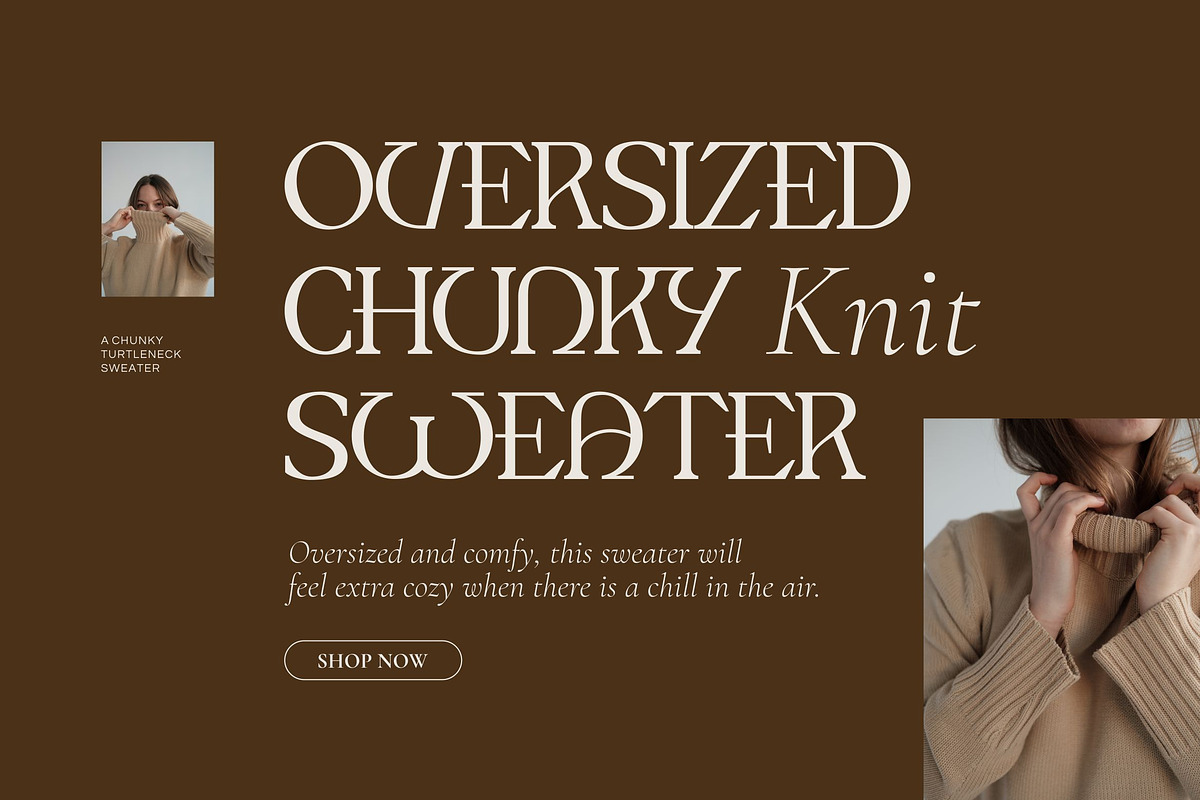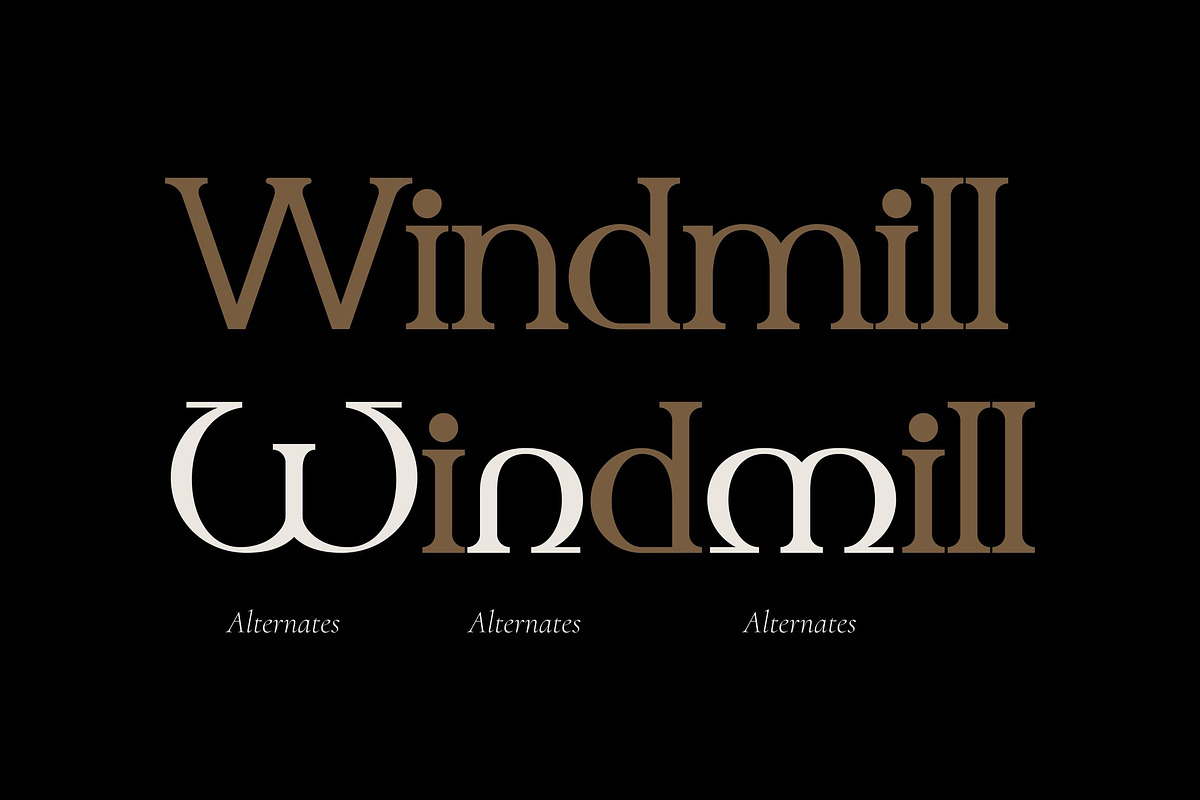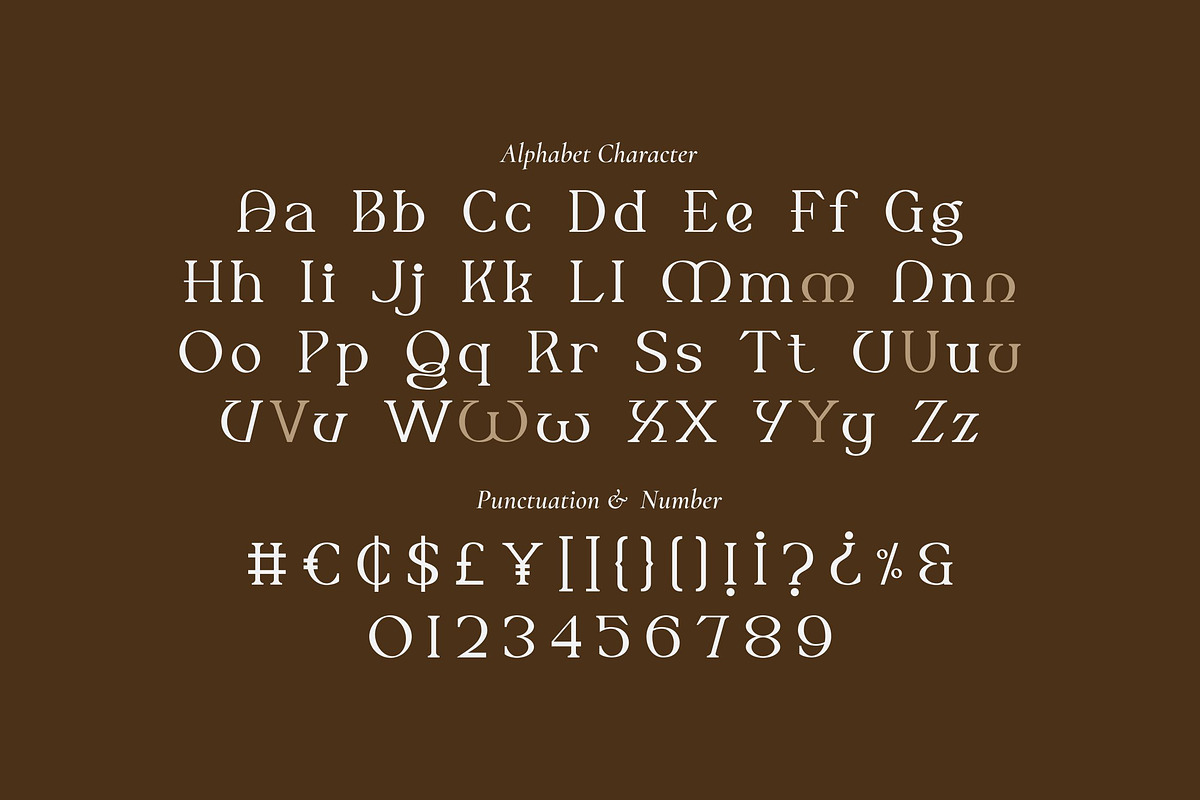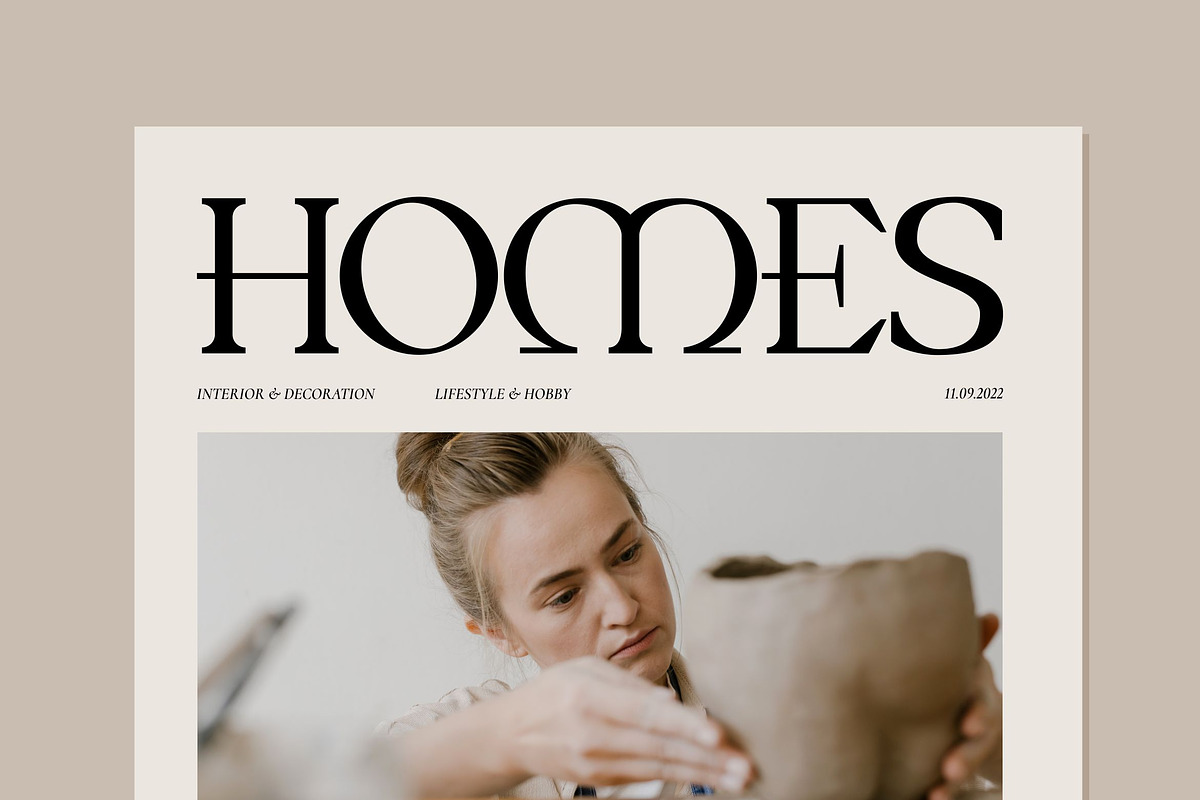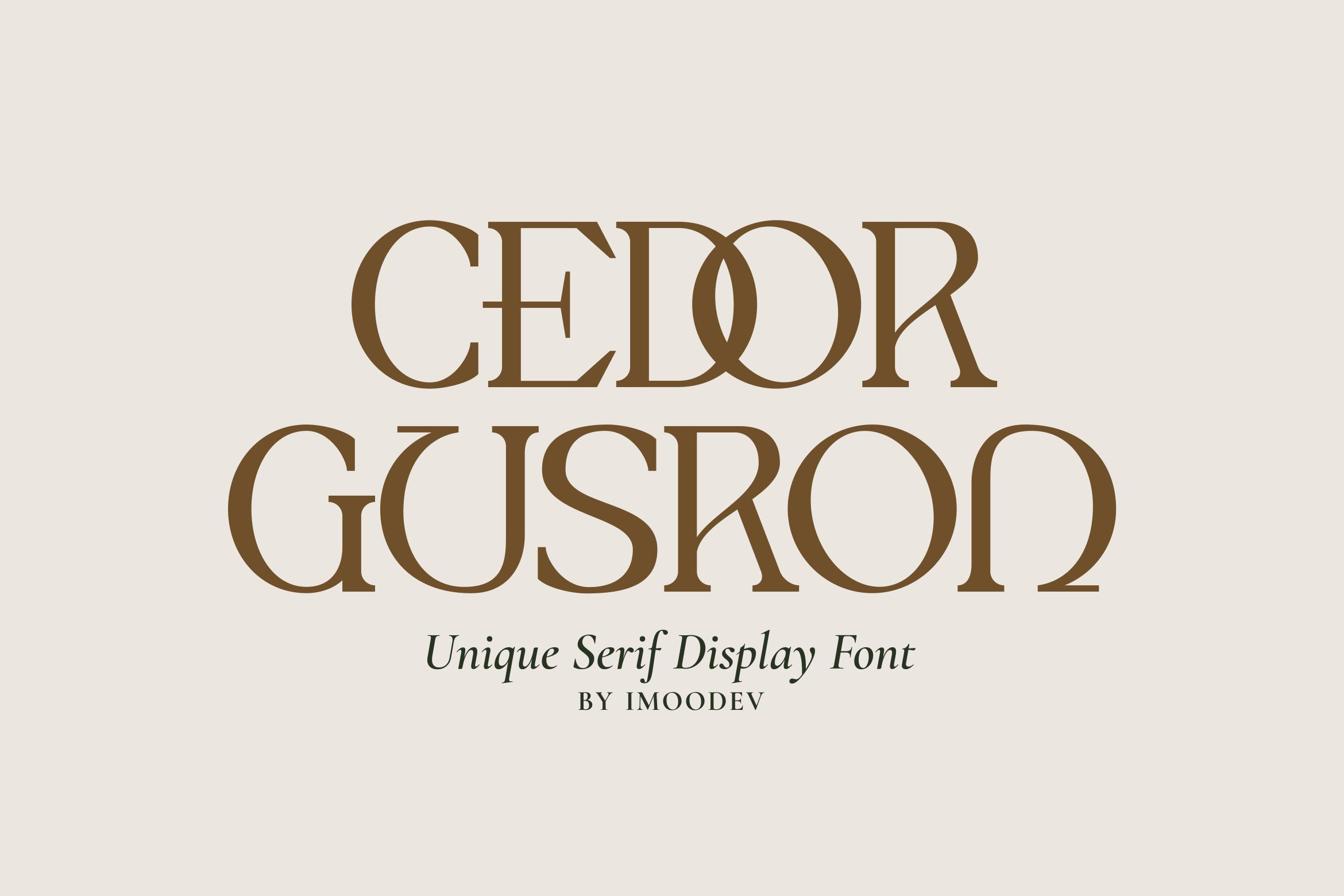
Cedor Gusron - Luxury Serif Typeface
Cedor Gusron is a elegant and stylish serif display font that masterfully blends classic serif sophistication with a contemporary artistic twist. It's the perfect choice for projects that demand sophistication and a touch of luxury.
Its distinctive alternates and stylish ligatures give any design a premium, editorial feel, ideal for branding, fashion campaigns, magazine headlines, product packaging, invitations, and digital content. Whether you're crafting high end logo, minimalist poster, or eye catching social media ad, this typeface ensures your message resonates with sophistication and modern charm.
- Uppercase and Lowecase Characters.
- Numerals and Punctuations.
- Alternates and Ligatures.
- Multilingual Support.